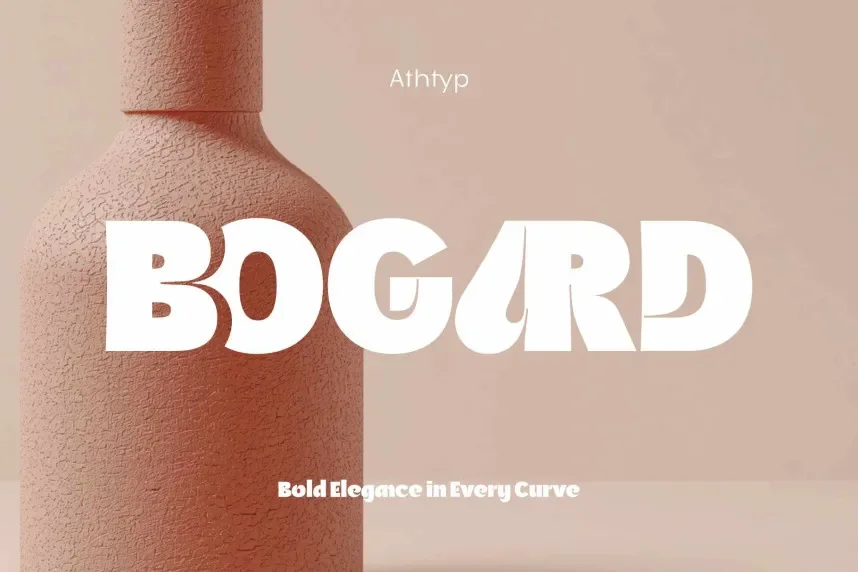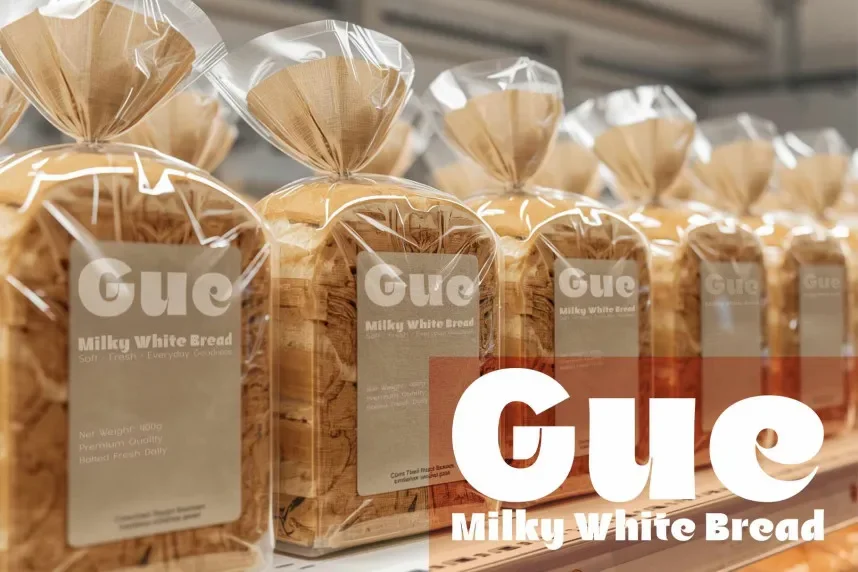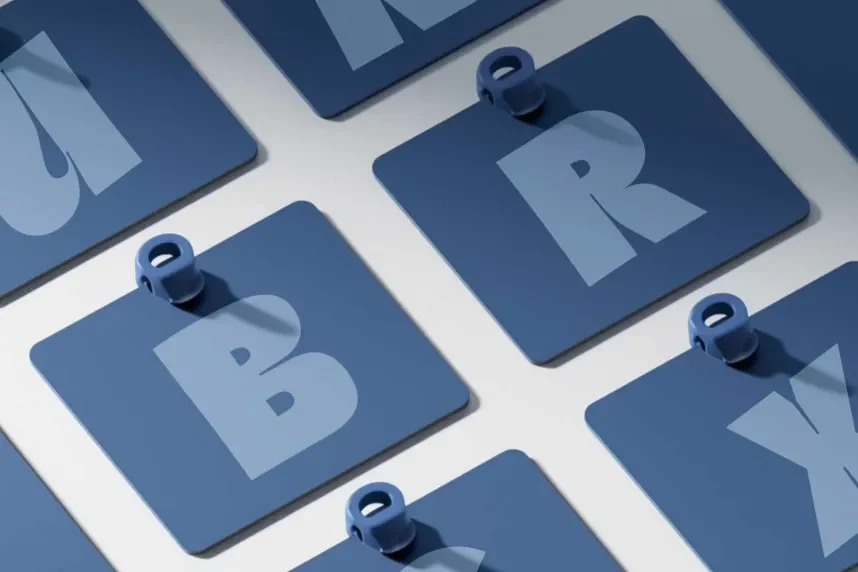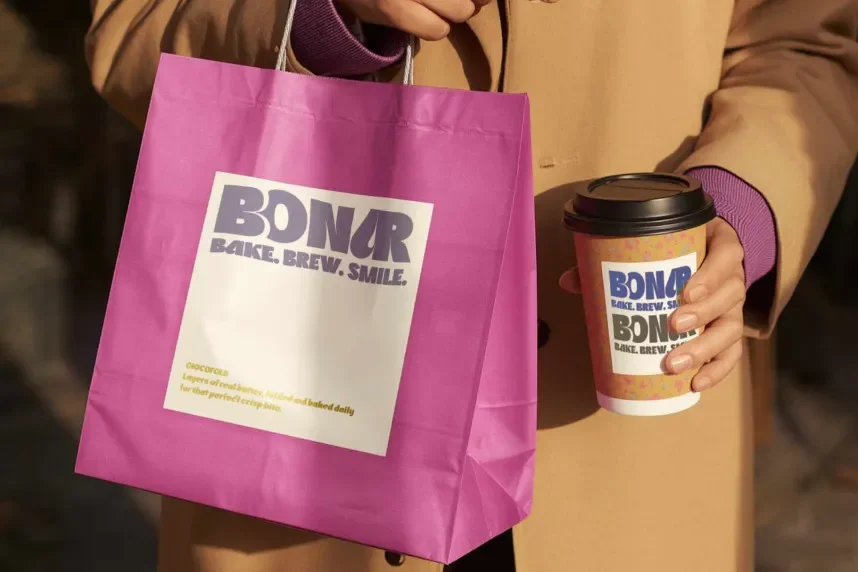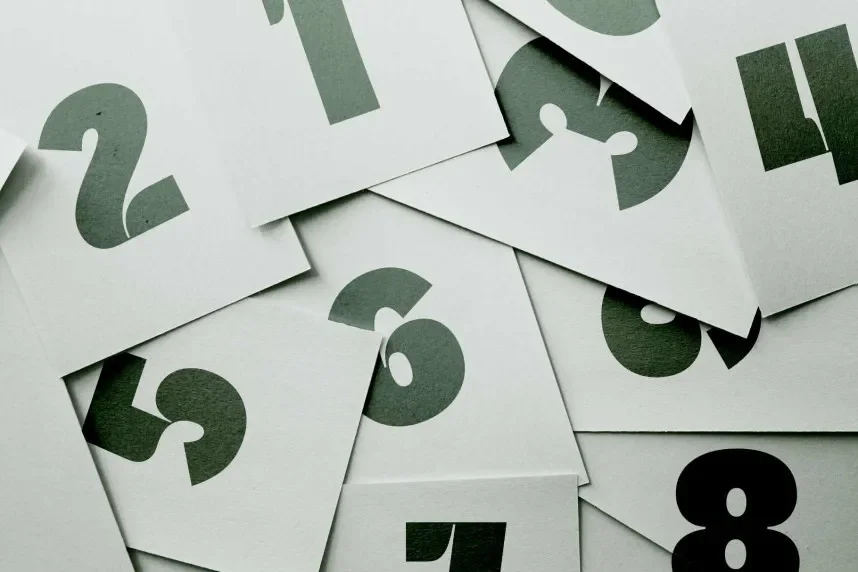
Bogard Font supports designers who need strong typographic presence in branding and headline applications. It helps solve visibility issues where text must stand out without complex ornamentation.
Bogard Font is a display-oriented typeface, featuring firm strokes, defined letter shapes, and controlled spacing. The letterforms emphasize structure and weight, improving clarity at larger sizes.